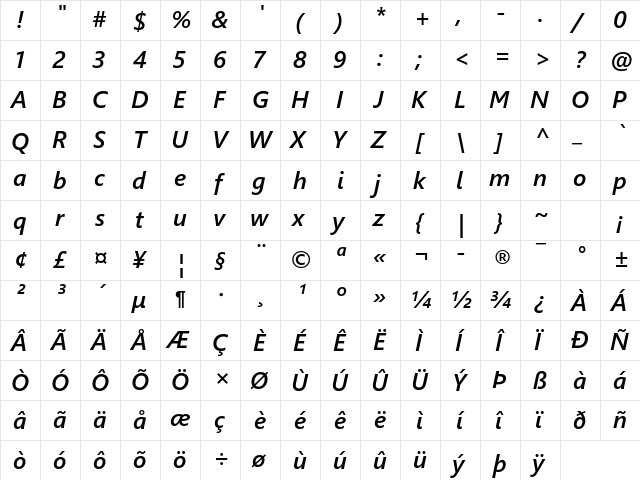
Segoe UI Semibold Italic Font Preview
Segoe UI Semibold Italic
Segoe UI Semibold Italic Font Details
Design Context for Segoe UI Semibold Typeface
Segoe UI Semibold offers clean, dependable letterforms without strong stylistic allegiance, making it a practical choice for designers who need flexibility. The dynamic lean of this cut emphasises speed and emphasis in any layout. Its bold stroke weight gives it real presence on the page.
Pro Tip: Try Segoe UI Semibold for annotation and caption copy alongside an upright companion — the contrast in angle creates a dynamic but ordered typographic system.